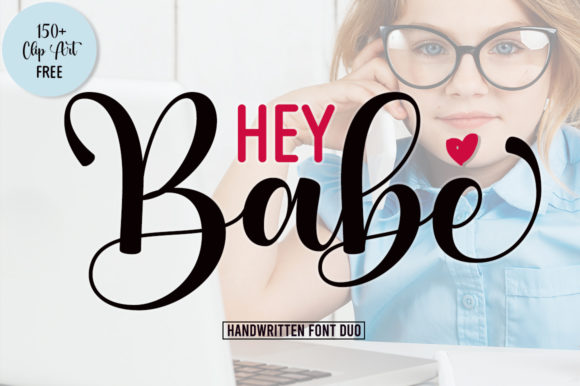
Welcome to the captivating world of Hey Babe Font, the ultimate duo font designed to ignite your creativity. A seamless blend of modern sans serif and elegant script, this font duo stands poised to elevate your designs, taking them to unprecedented heights.
With its remarkable versatility, Hey Babe Font effortlessly adapts to a boundless spectrum of projects, from heartfelt wedding invitations and sophisticated branding initiatives to mesmerizing social media posts and striking product packaging. Its innate ability to seamlessly harmonize with various design aesthetics makes it an indispensable asset for designers seeking to make a lasting impression.
Immerse yourself in the beauty of the Hey Babe Font and experience the joy of crafting designs that resonate with your audience. Its carefully crafted letterforms, enchanting ligatures, and an array of swashes empower you to infuse your projects with a touch of unparalleled elegance and charm.
Harness the boundless potential of Hey Babe Font and unlock the gateway to captivating visual expressions. Whether you're a seasoned designer or embarking on your creative journey, this font duo will serve as your steadfast companion, guiding you towards design excellence.
Embrace the Hey Babe Font and elevate your designs to the next level. Grant yourself the opportunity to create breathtaking projects that captivate, inspire, and leave an enduring impact on your audience. Let your creativity soar and paint the world with your unique artistic vision.